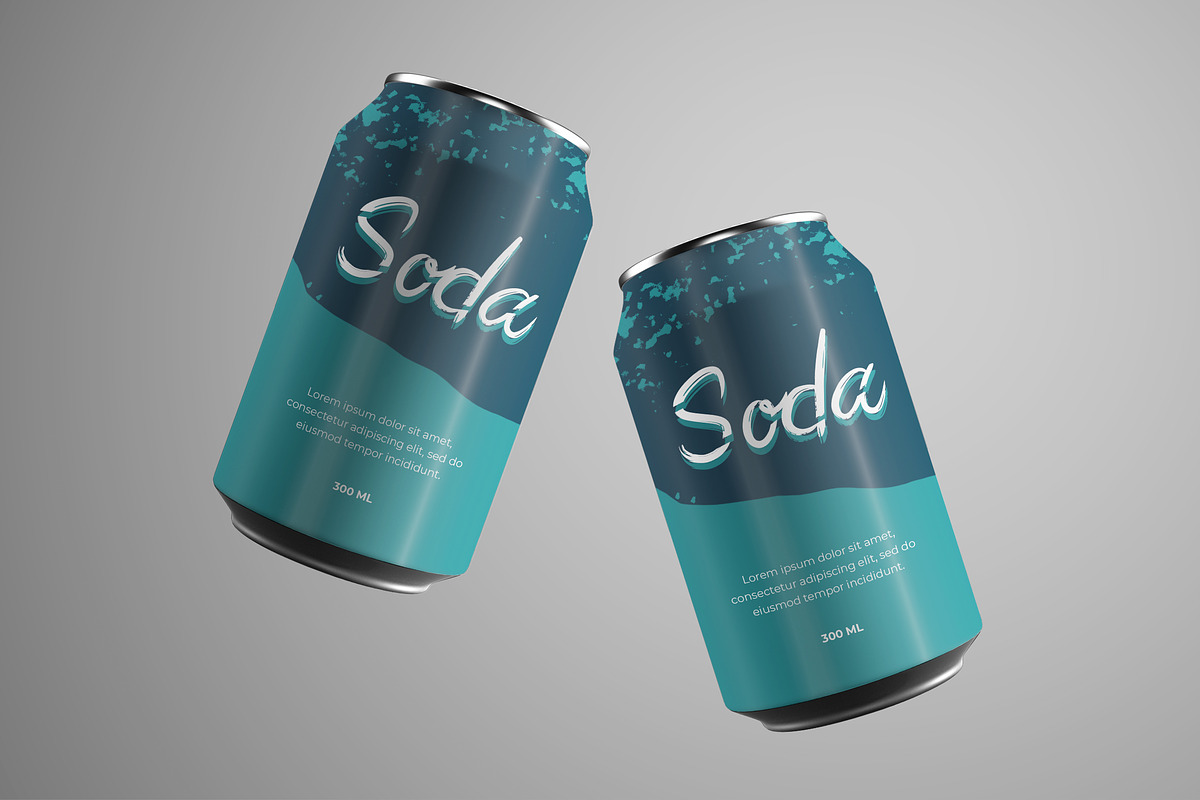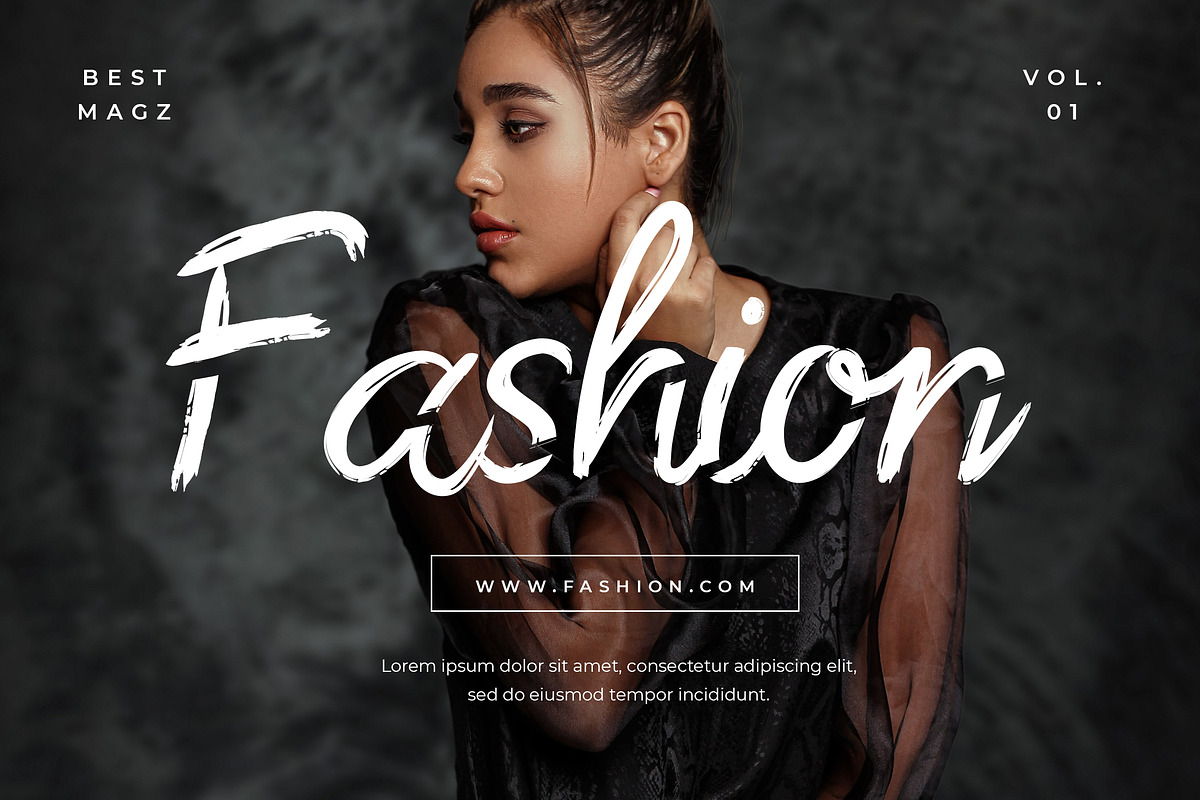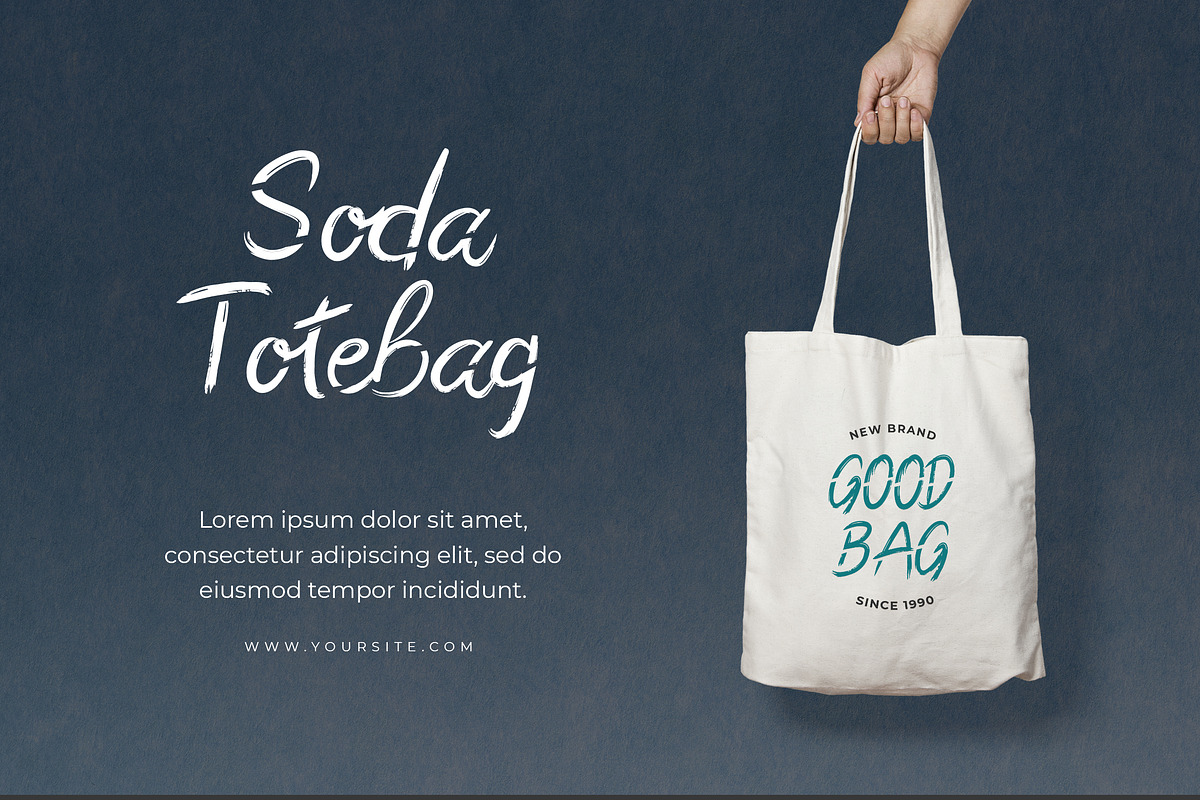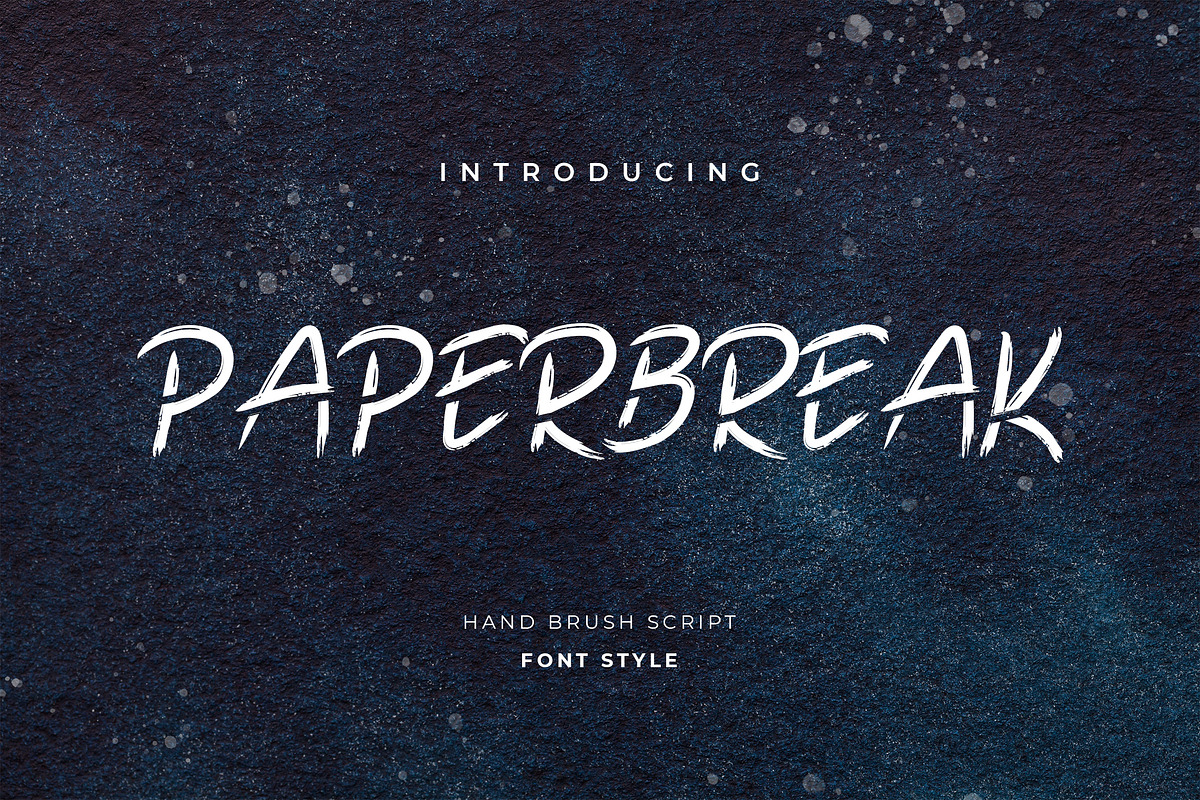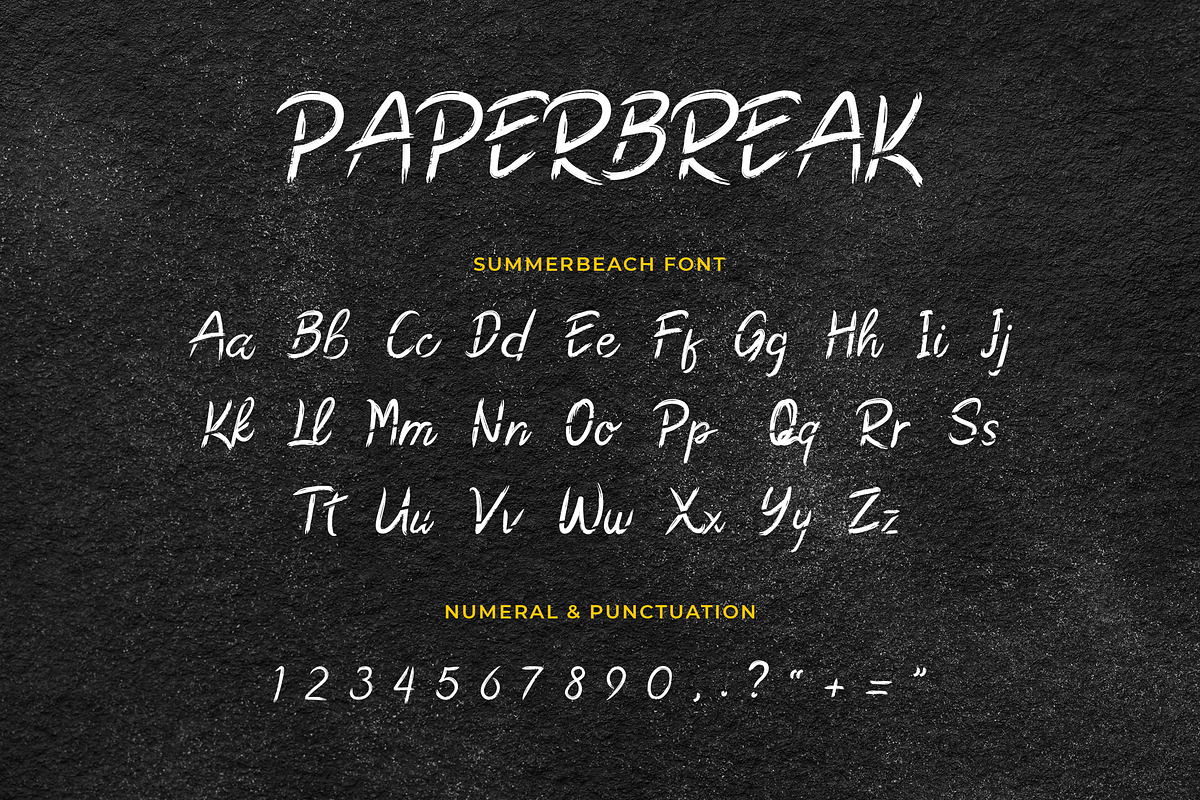
Paperbreak Brush Handwritten Font
Paperbreak is unique handwritten font with a personal charm. With quick dry strokes and also has vintage display font. Can make it easier to convey the message in your design. Use for awesome display, labeling, clothing, movie sceen, poster, movie title, gigs, album covers, logos, and much more. It's also could be good for both fun and semi-formal text.
Paperbreak Brush Handwritten Font by UICreative fits naturally into Branding, posters, packaging, typography.